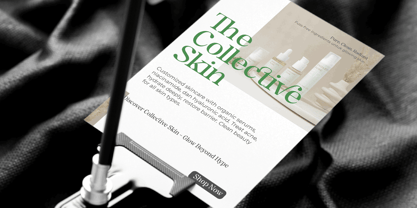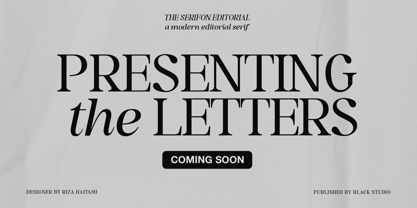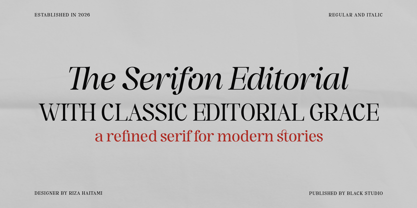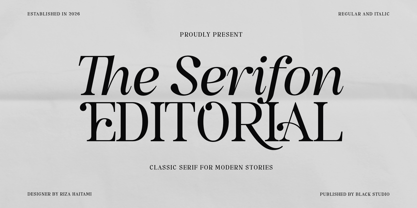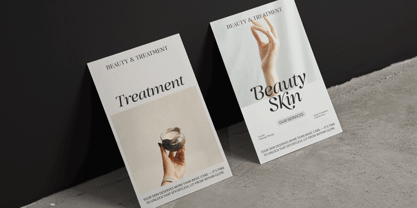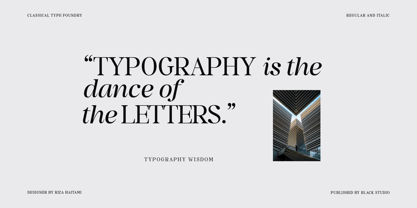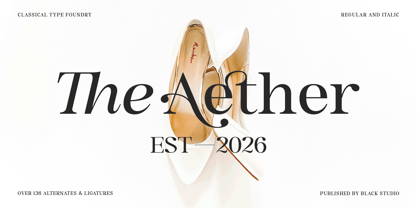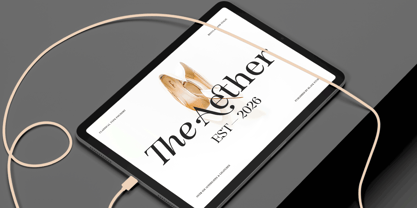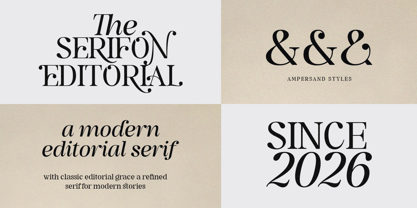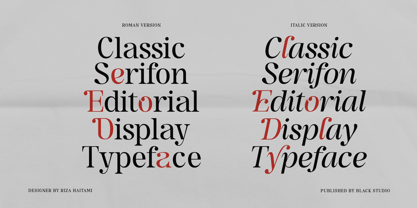
The Serifon Editorial
The The Serifon Editorial Font Family was designed by Reza Haitami and published by Black Studio. The Serifon Editorial contains 2 styles and family package options. More about this family
The Serifon Editorial is a classic serif typeface from Black Studio, crafted for modern editorial storytelling with elegant, high-contrast letterforms and refined details. It blends the charm of traditional print with a contemporary attitude, making it perfect for magazine headlines, book layouts, and sophisticated branding that needs a dramatic yet readable voice.​ With the tagline “Classic Serif for Modern Stories,” The Serifon Editorial brings a timeless, luxurious feel to both print and digital projects. Its balanced x-height, graceful curves, and expressive ligatures are designed to create attention-grabbing titles while still supporting longer narrative content with clarity and style. Typeface Features Styles: Regular and Italic, carefully tuned for display and editorial use. Character set: Extended Latin support for multilingual projects across a wide range of European languages. OpenType features: Standard ligatures, contextual alternates, stylistic sets, small caps, fractions, superscript/subscript, ordinals, and full kerning for professional typography control. Best use cases: Editorial headlines, magazine covers, feature spreads, luxury fashion and beauty branding, book covers, and any design that seeks a curated, elegant, and memorable serif voice.